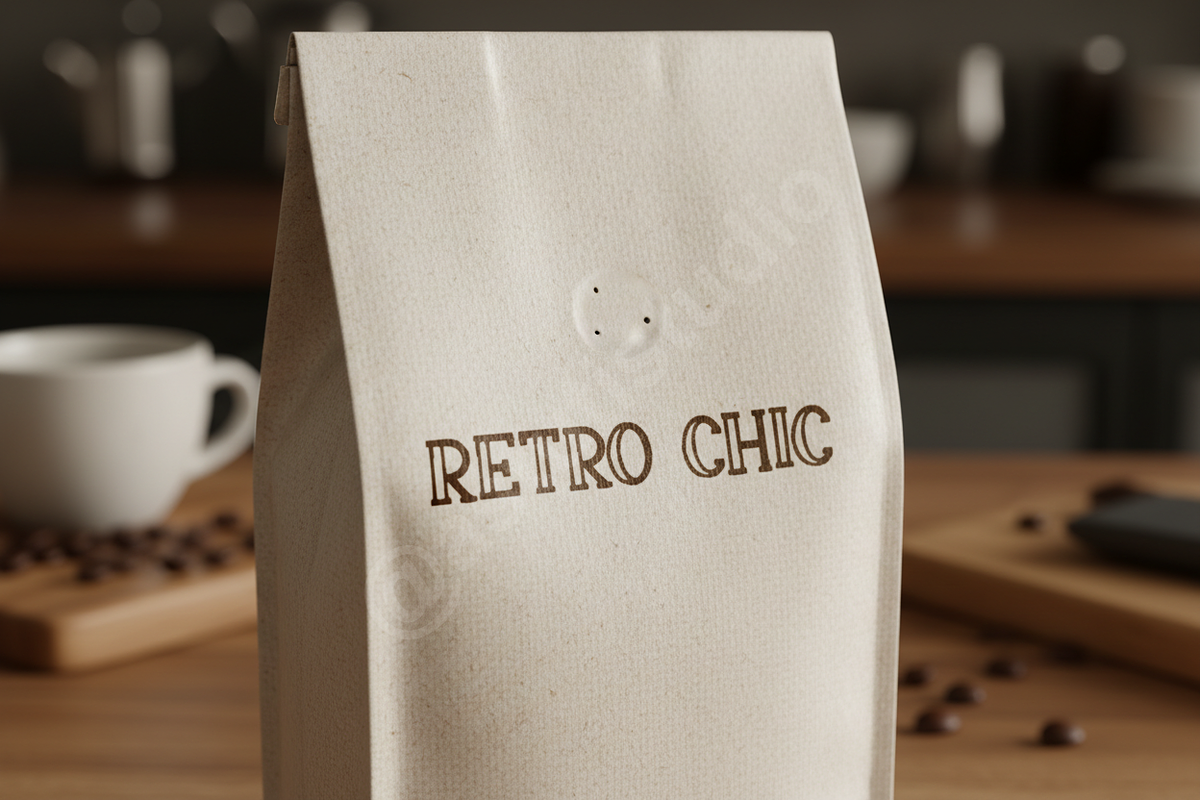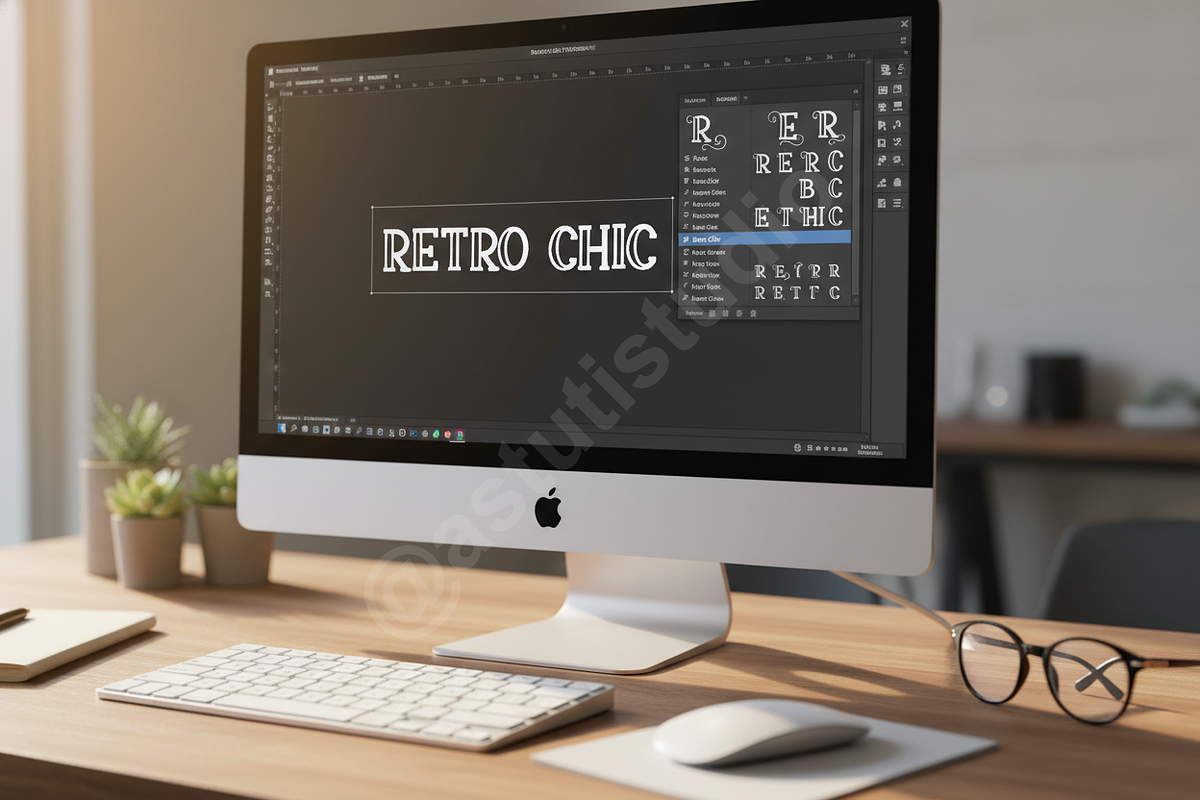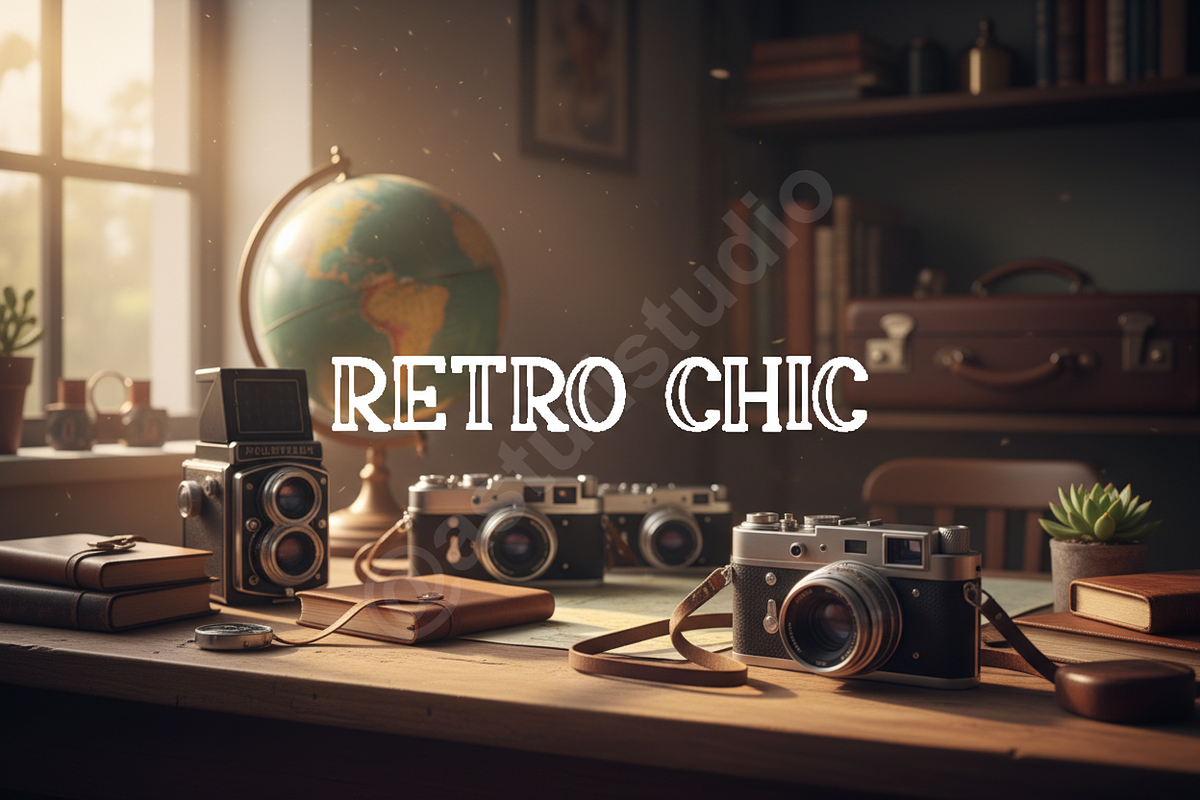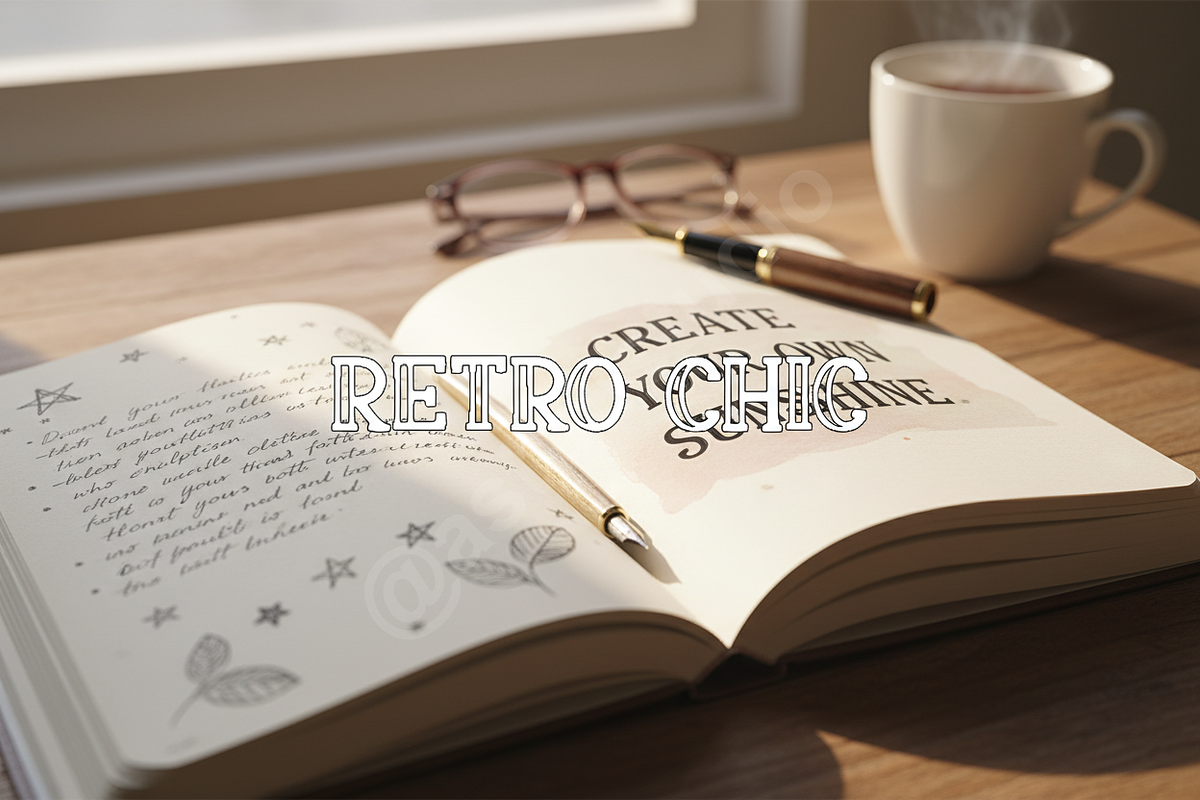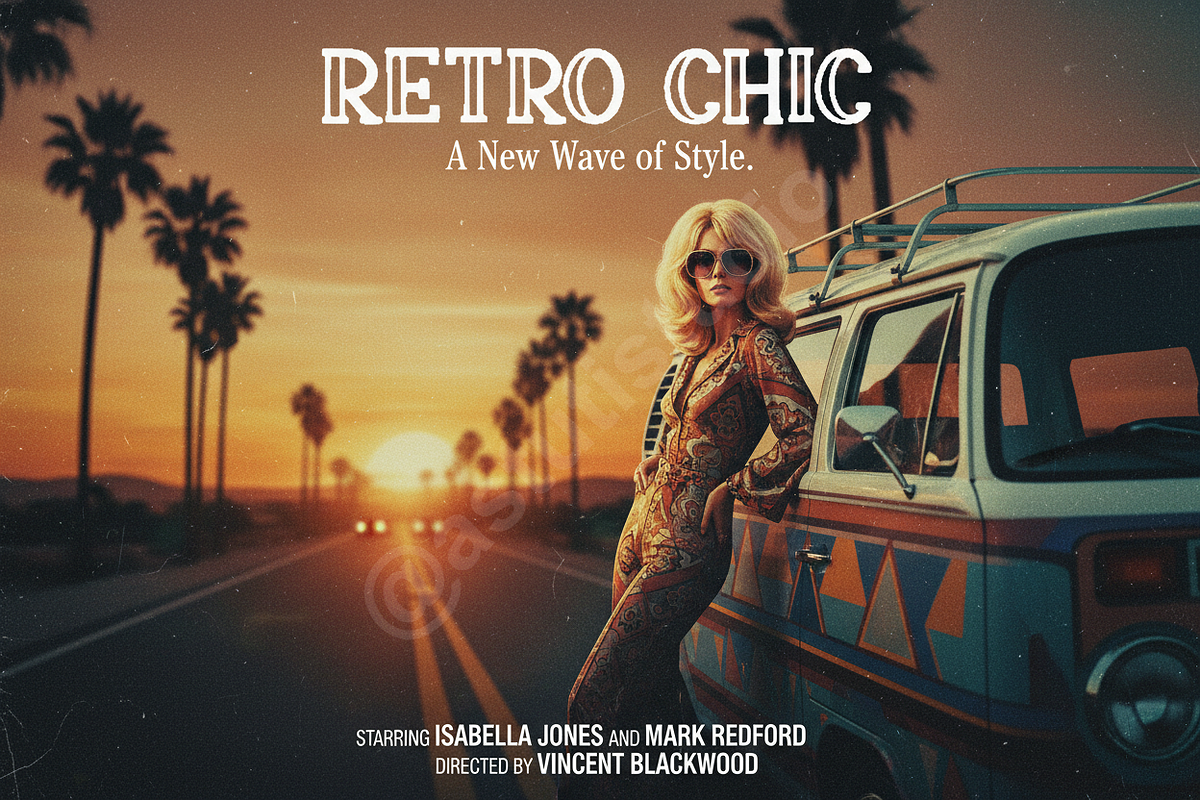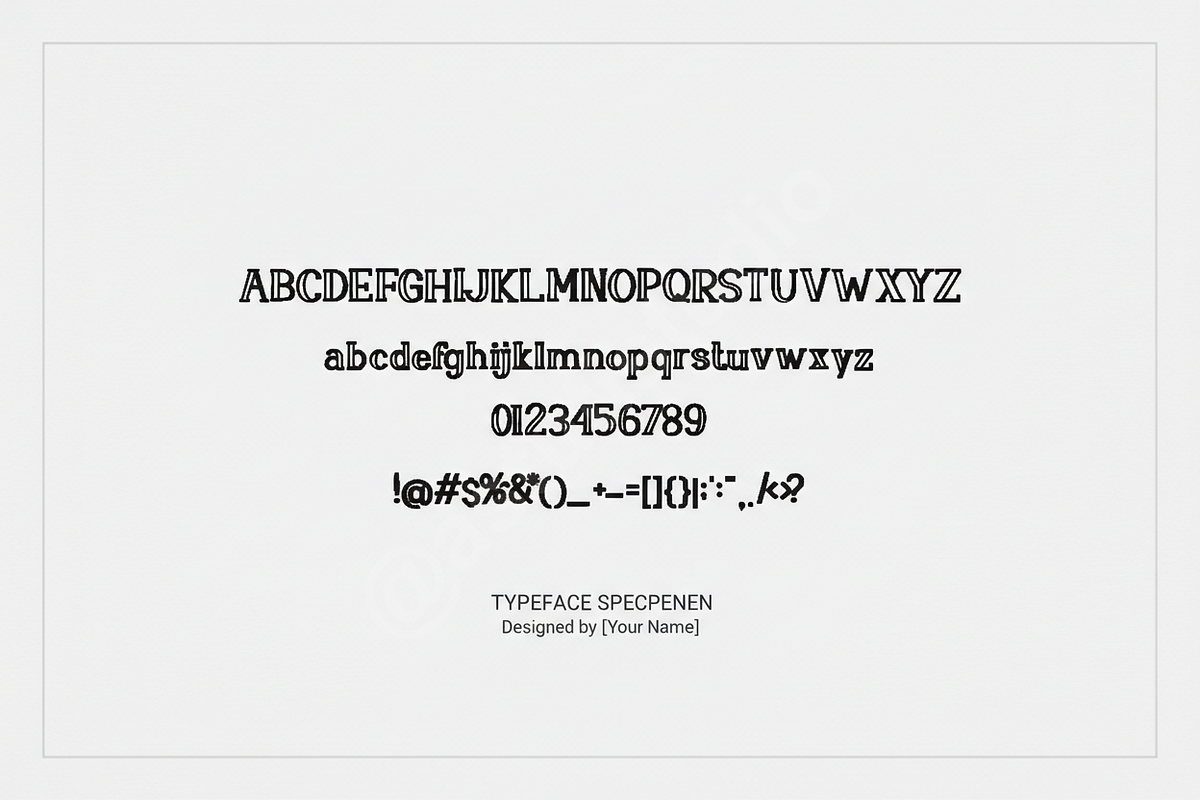
Lomo - A Refined Modern Serif Typeface
Introduction Lomo is a sophisticated serif font designed for the discerning creator. Inspired by high-end editorial aesthetics and timeless luxury, Lomo brings an air of effortless elegance to every project. Whether you are crafting a boutique brand identity or designing a minimalist magazine layout, this typeface provides the perfect balance of classic structure and modern flair.
- Elegant high-contrast letterforms for a premium feel
- Sophisticated ligatures for custom typographic looks
- Extensive multilingual support for global reach
- Optimized for luxury branding, editorial design, and social media storytelling
- Full uppercase and lowercase alphabet sets
- Numbers, punctuation, and symbols
- Specialized ligatures and alternate characters